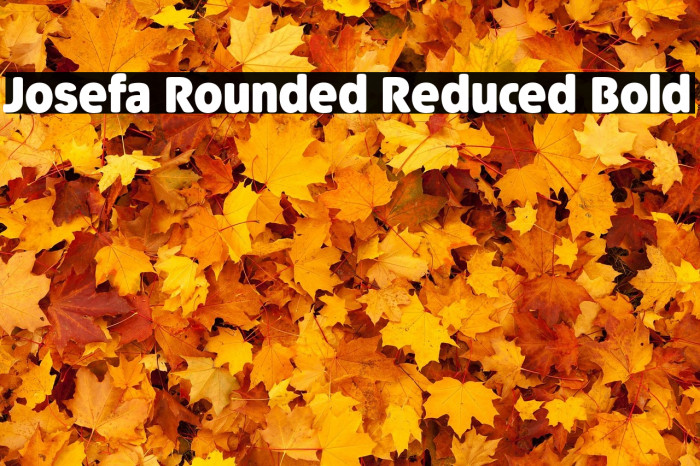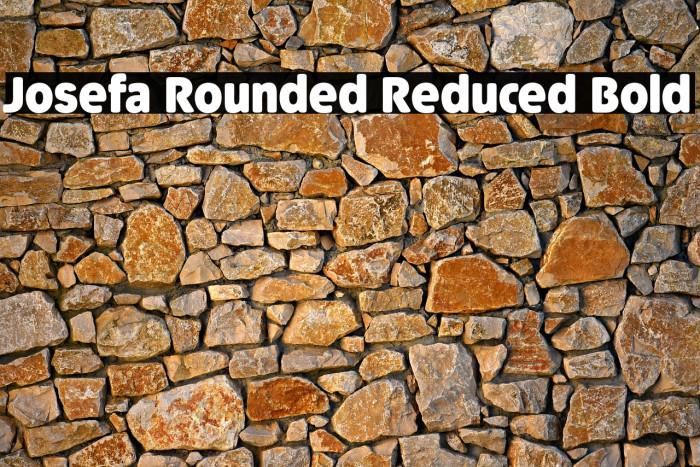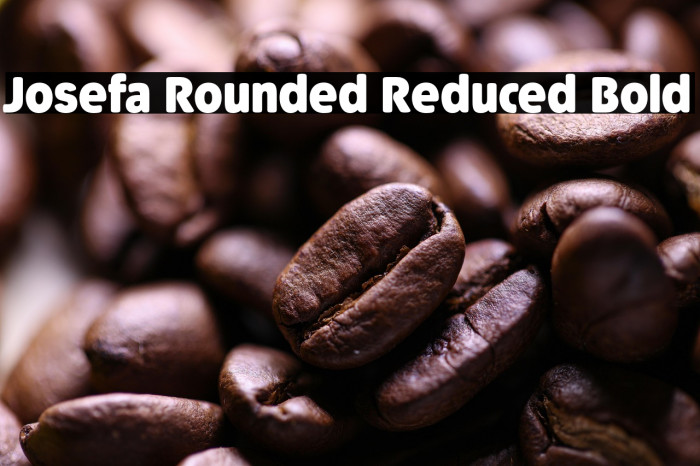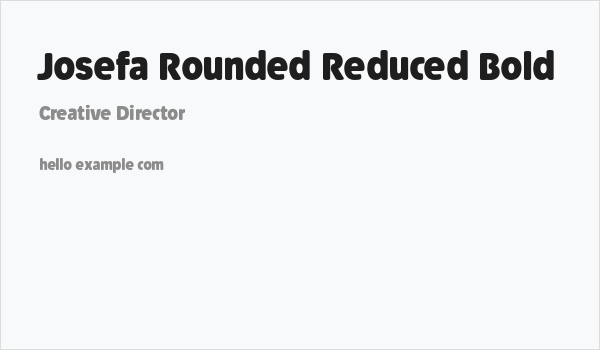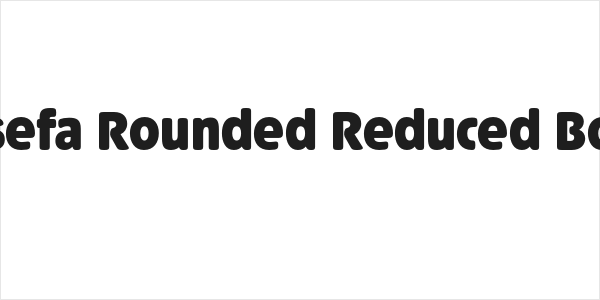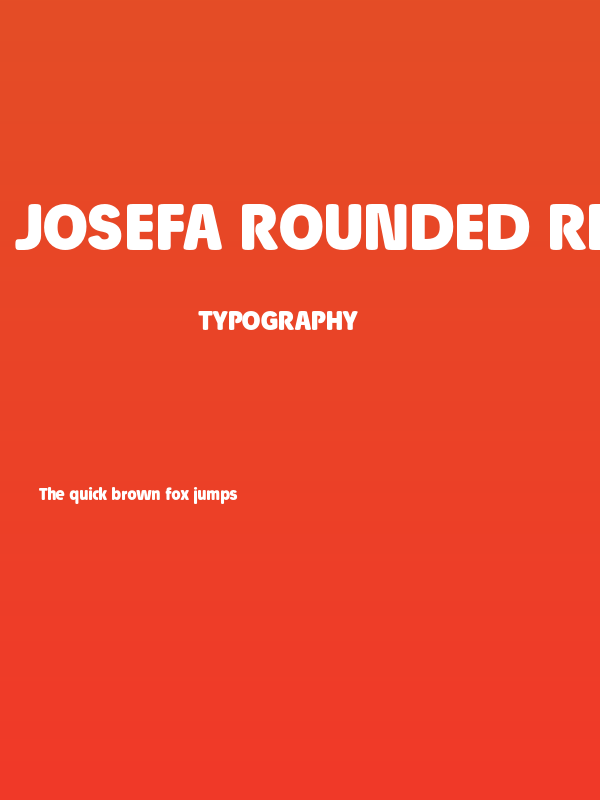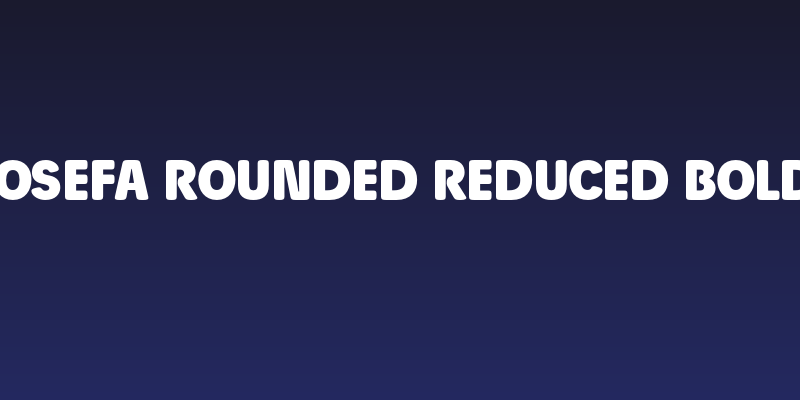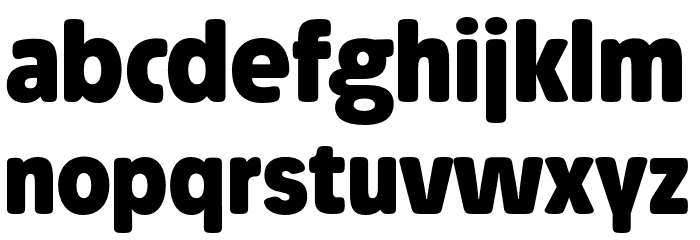
Josefa Rounded Reduced Bold Font
Josefa Rounded Reduced Bold Description
This font features a bold and rounded style, characterized by its smooth curves and thick strokes. The letters are evenly spaced, providing a balanced and cohesive appearance. The rounded edges give it a friendly and approachable look, making it suitable for a variety of design projects. Its boldness ensures high readability, while the rounded forms add a touch of softness and modernity. The font maintains consistency across uppercase and lowercase letters, with a uniform stroke width that enhances its clean and polished aesthetic.
| Proposed Projects | Ideal for branding, signage, headlines, and children's books due to its friendly and modern appearance. |